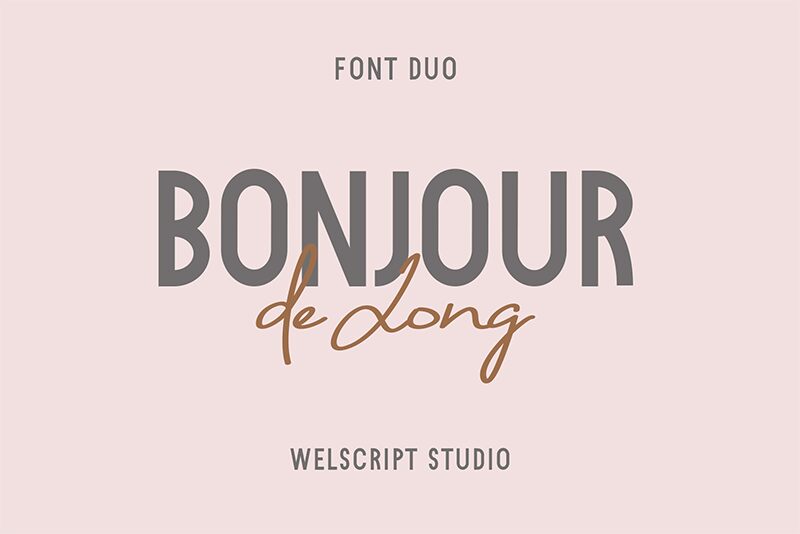
Bonjour de Jong is a stunning modern font duo that makes for gorgeous logos, posters, wedding invitations, blog posts, social media, and more!
Bonjour De Jong Sans